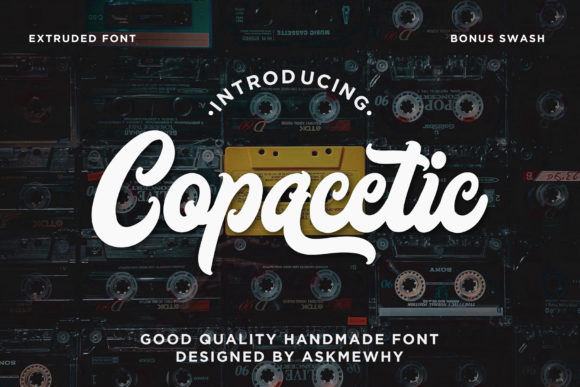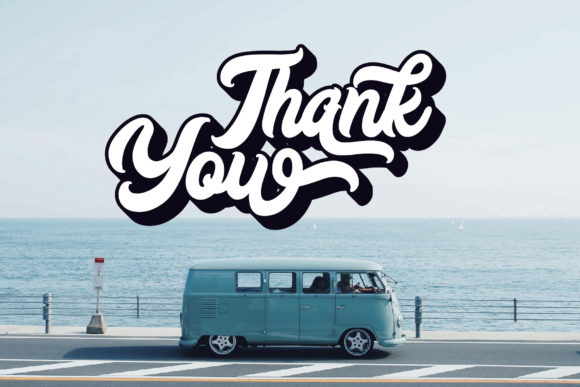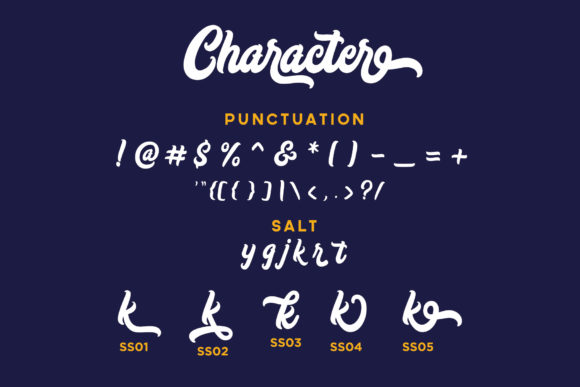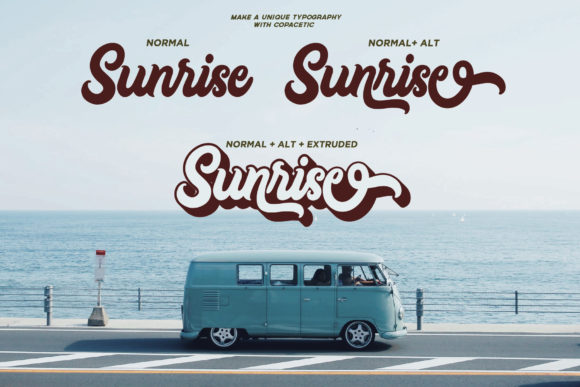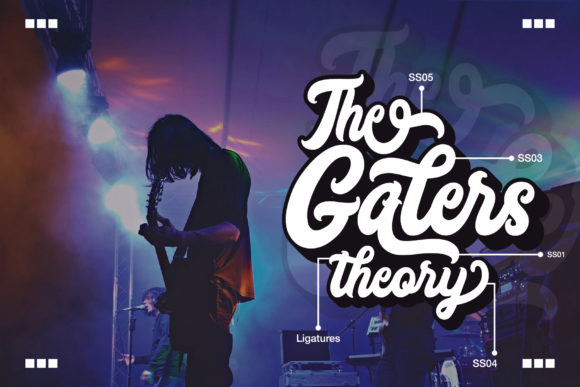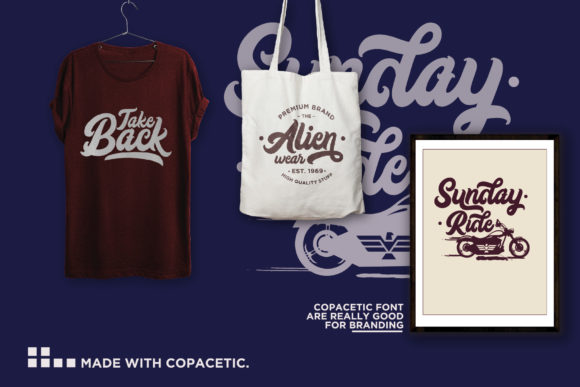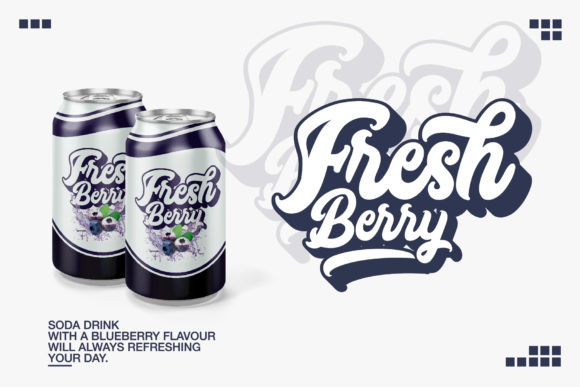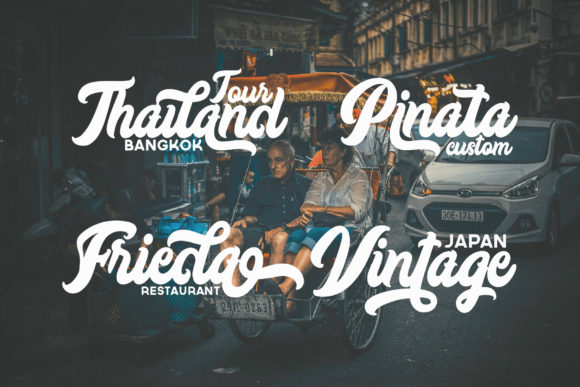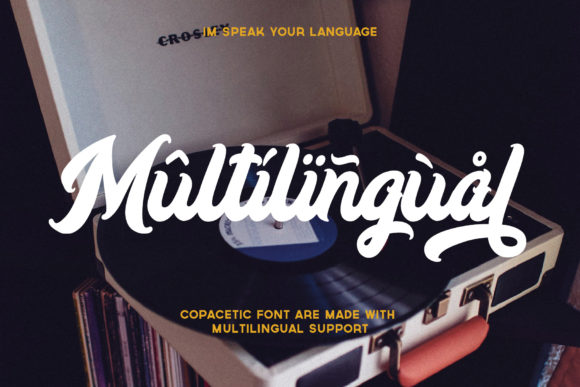
Copacetic Font
About Copacetic Font
Copacetic is a powerful and charming script that’s full of authenticity. Use it to add a personal touch to any creative idea.